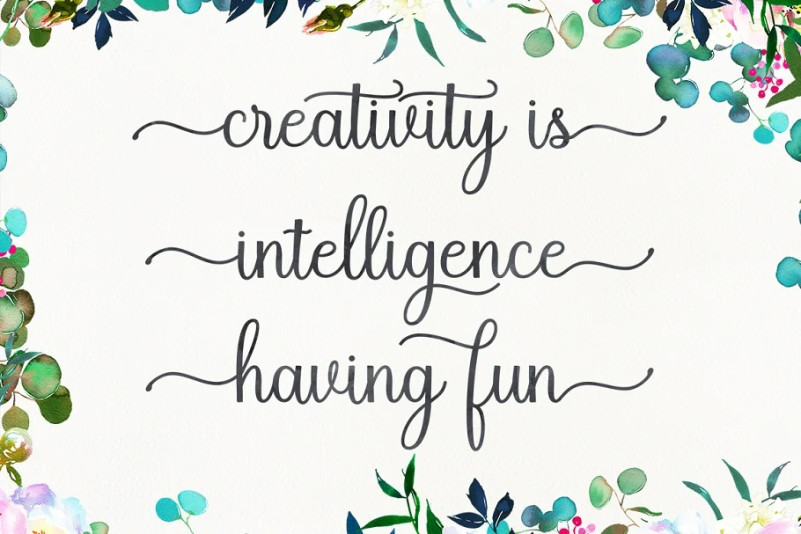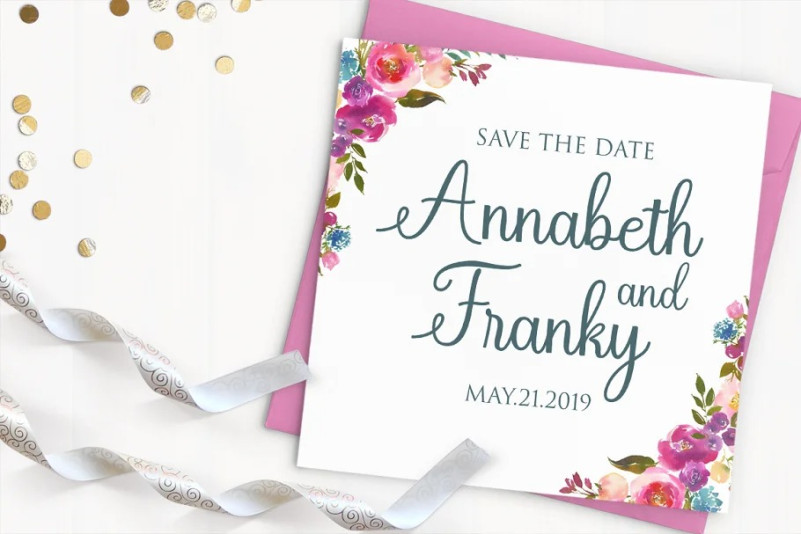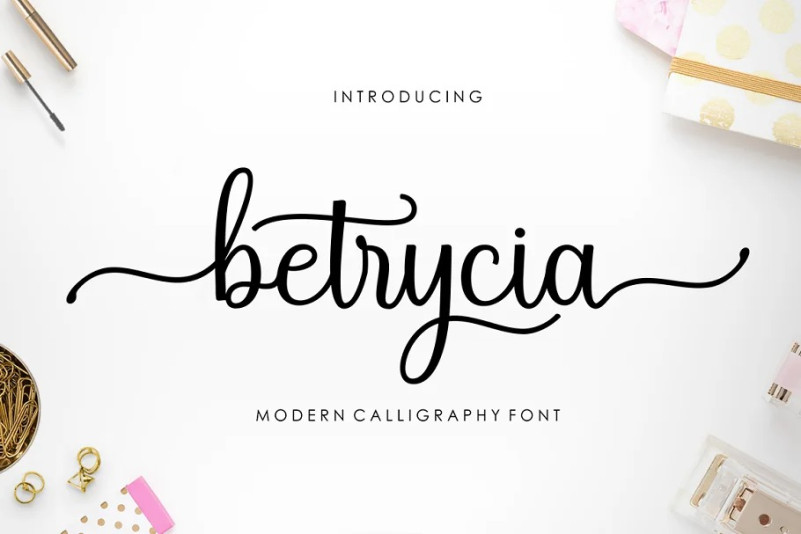
Betrycia Font
Betrycia Script Font is modern calligraphy font. This font is casual and pretty with swashes. Can used for various purposes. such as logo, product packaging, wedding invitations, branding, headlines, signage, labels, signature, book covers, posters, quotes and more.